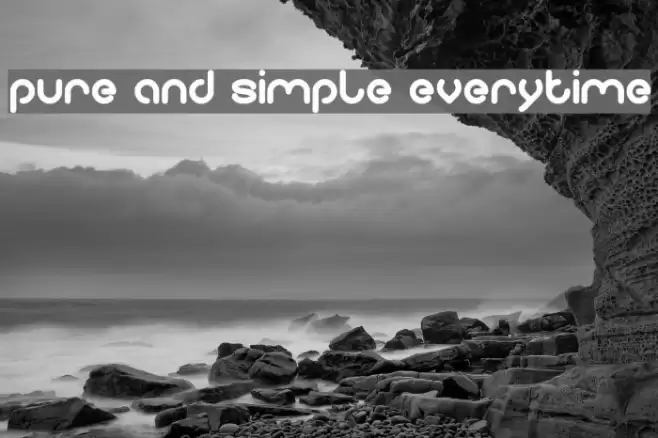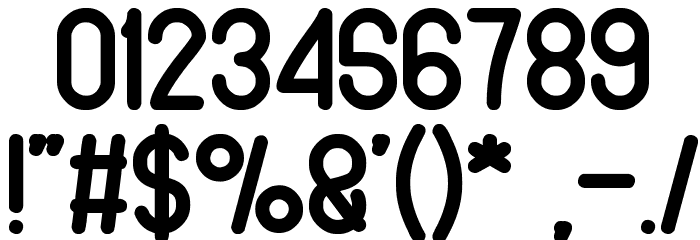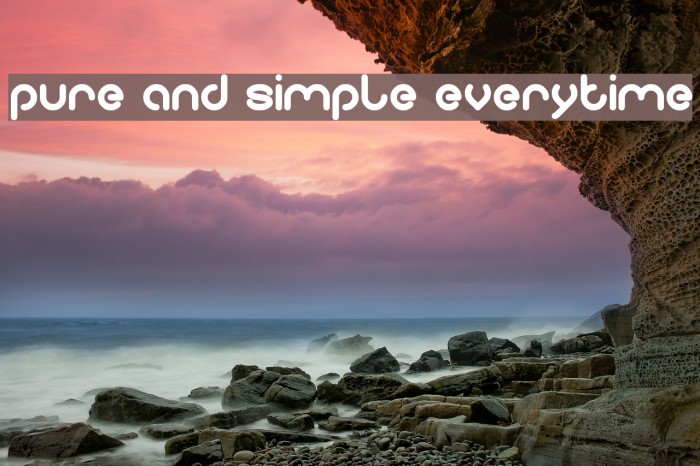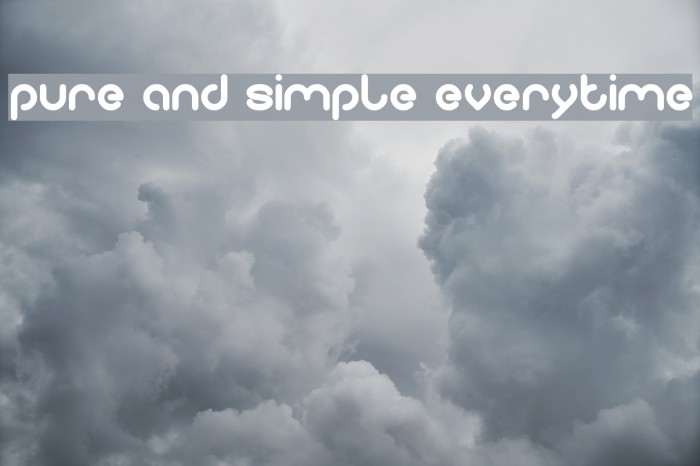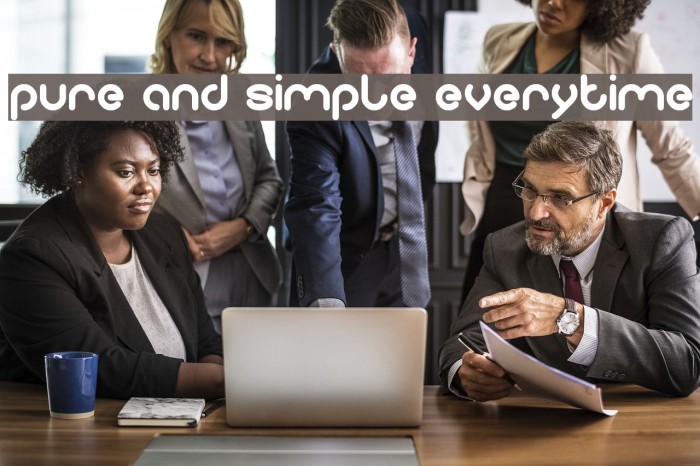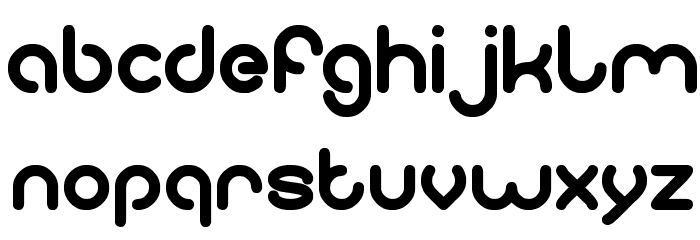
pure and simple everytime Font
pure and simple everytime Description
This font features a playful and rounded style, characterized by its bold and smooth curves. The letters have a consistent thickness, giving it a uniform appearance. The uppercase and lowercase letters maintain a similar width, creating a harmonious look. The numbers and special characters follow the same rounded design, making them easily legible. This font exudes a friendly and approachable vibe, suitable for various creative applications.
A playful, rounded font with bold, smooth curves from Uncategorized fonts.
- Proposed Projects: Ideal for children's books, playful branding, casual invitations, and fun posters.
- Overall Style: Playful